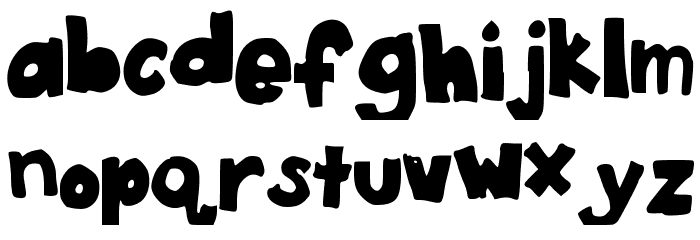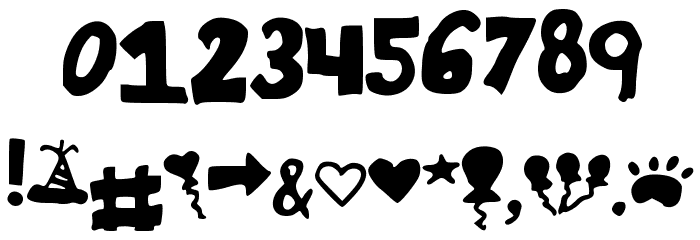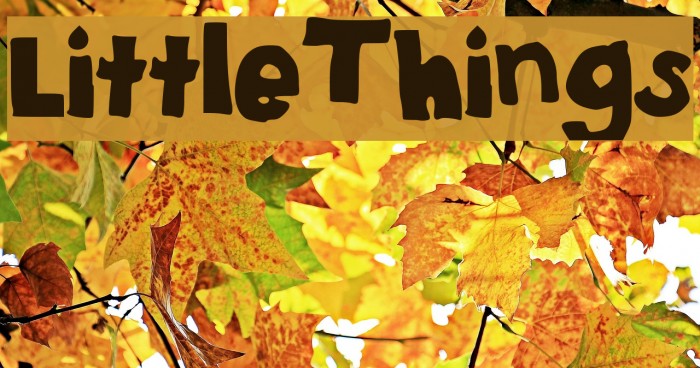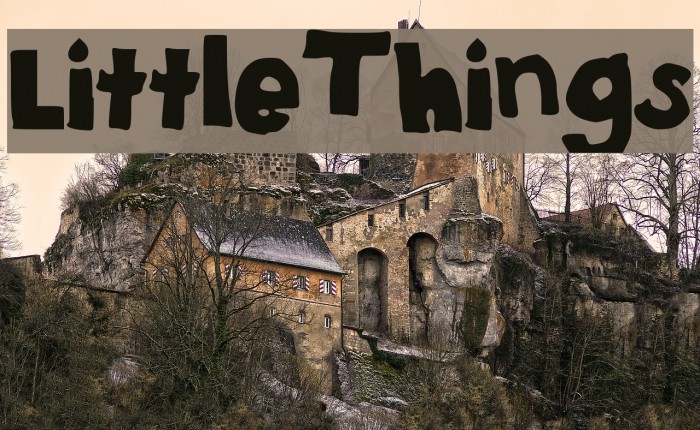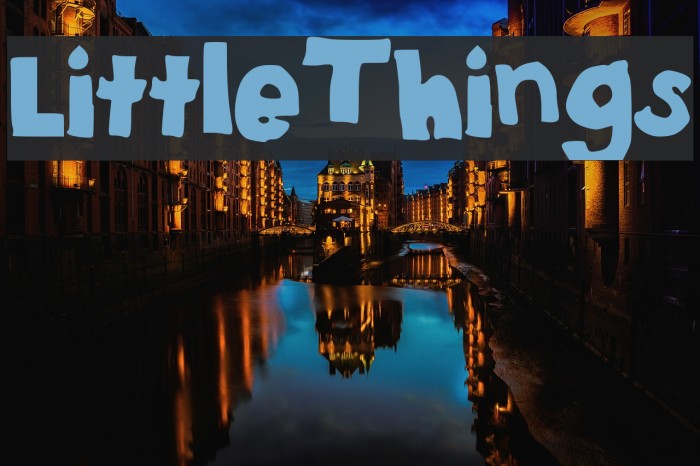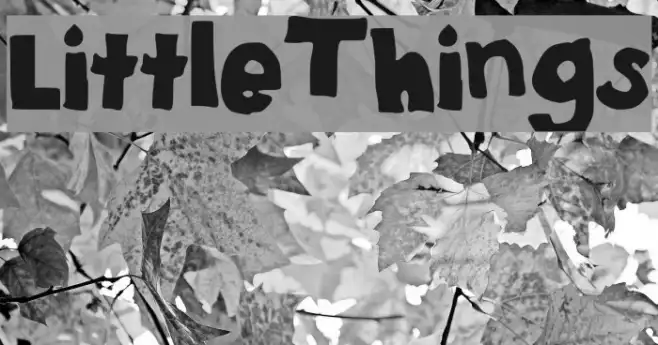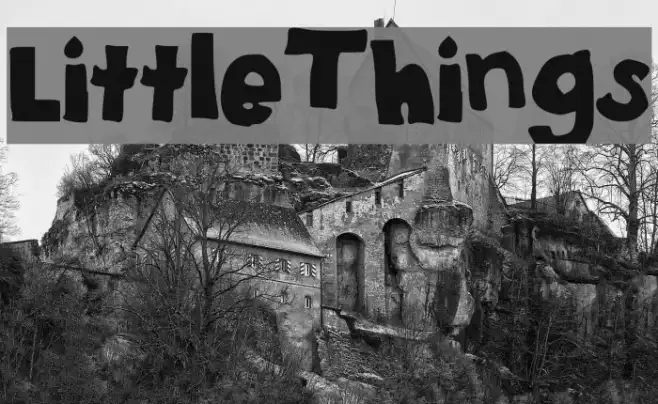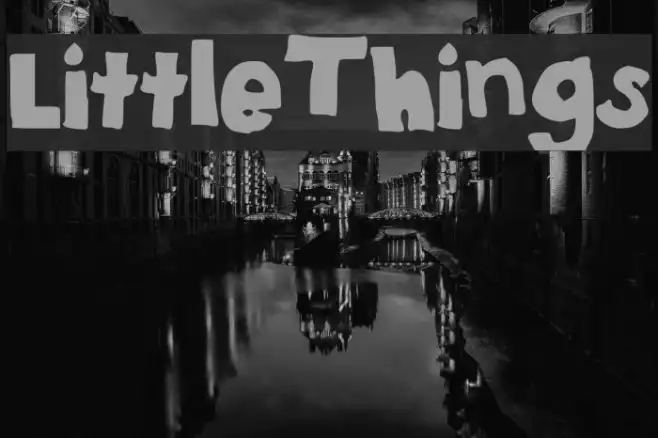
Little_Things Font
This playful and bold font features a hand-drawn, whimsical style that is both informal and eye-catching. The characters are uneven and slightly irregular, giving them a lively and dynamic appearance. The uppercase letters are chunky and robust, while the lowercase letters maintain a consistent playful tone. Numbers and special characters follow the same quirky design, adding to the overall charm. This font exudes a sense of fun and creativity, making it perfect for projects that require a touch of personality and flair.
A playful, hand-drawn font with a bold and whimsical style.
- Proposed Projects: Ideal for children's books, party invitations, playful branding, and creative posters.
- Overall Style: Playful, Whimsical, Hand-drawn